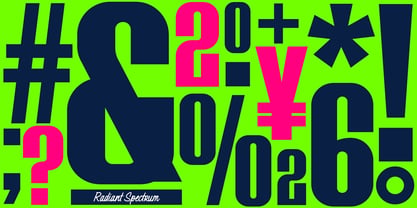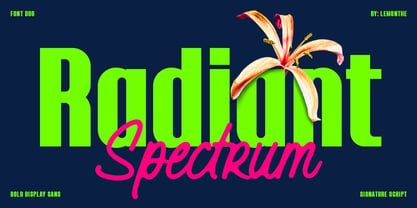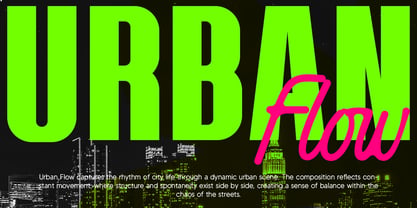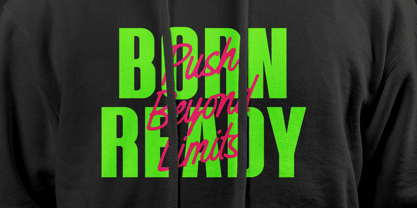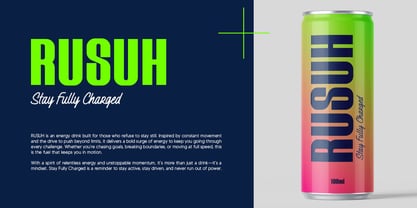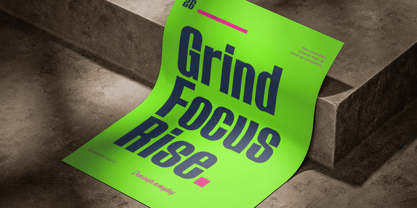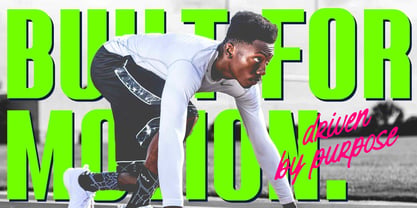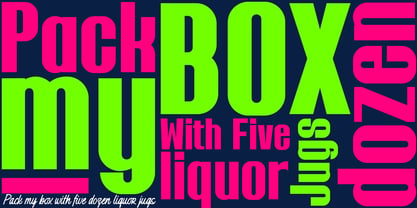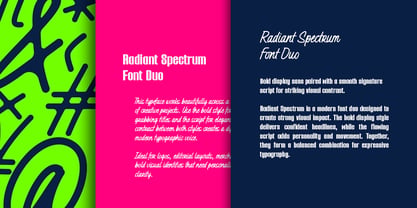
Radiant Spectrum
The Radiant Spectrum Font Family was designed by Dwi Ahidian and published by Lemonthe. Radiant Spectrum contains 2 styles and family package options. More about this family
Radiant Spectrum is a modern font duo that combines a bold display sans with a smooth signature script. The strong sans delivers a clean and modern impression, while the script adds a natural and stylish feel. The contrast between the two creates a clear visual balance, making it easy to use across various design compositions. This combination helps produce a dynamic yet flexible look for different visual needs. Radiant Spectrum is suitable for branding, posters, packaging, social media, logos, and editorial designs. The balanced contrast and clean character help create a modern, readable, and eye-catching appearance without feeling excessive. Combine both styles to create unique compositions and discover your own design style.
"Lemonthe is a type foundry operated by Dwi Ahidian, a letter enthusiast who enjoys calligraphy and loves experimenting with letter forms. Lemonthe provides a captivating collection of typefaces, each carrying a creative and unique experimental touch, meticulously crafted by hand. Dedication to detail ensures that some typefaces emanate a deep and serious aesthetic, while others showcase a more playful and creative side."